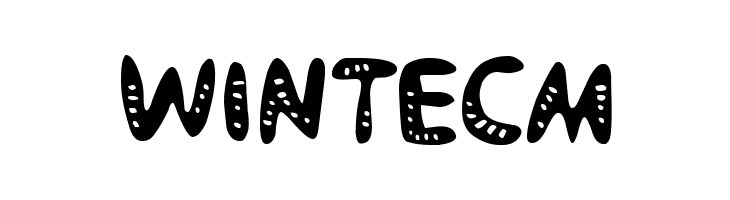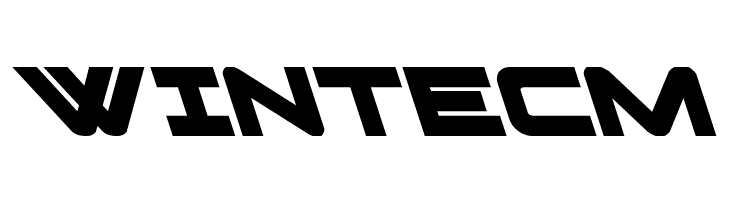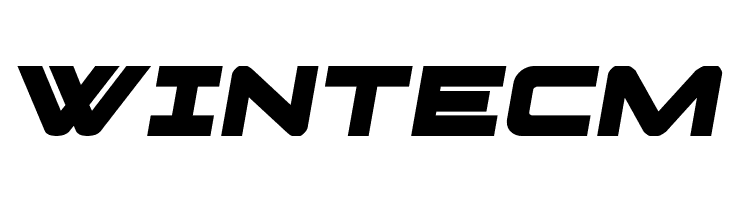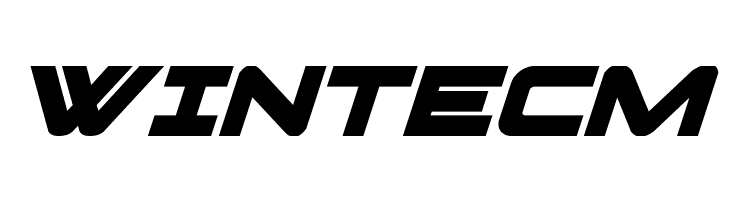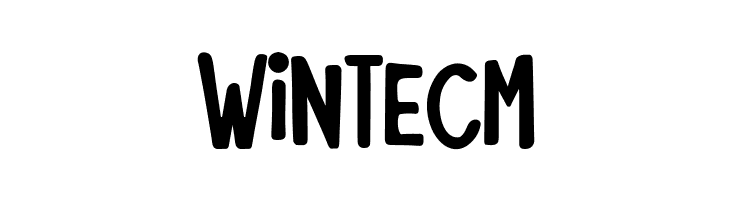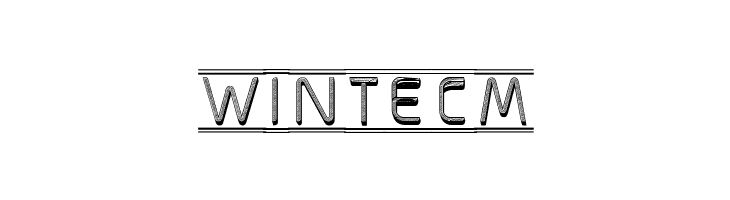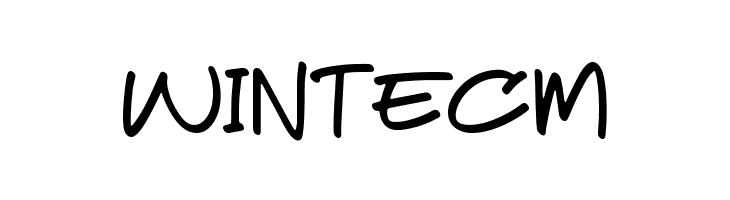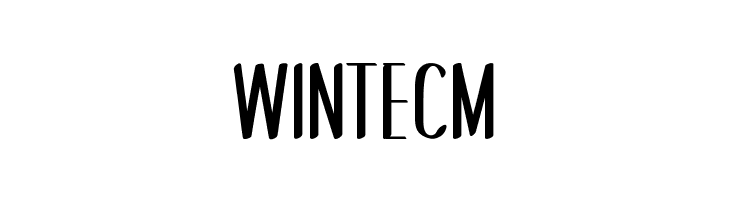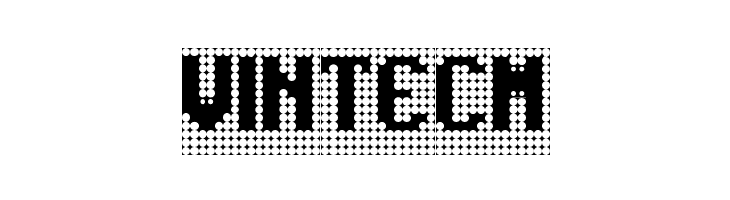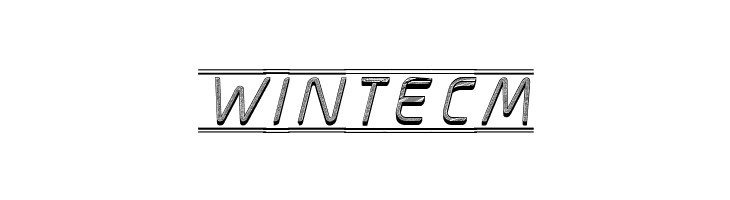
Pincers BRK Font
A thorn-like, edgy font with sharp, angular strokes resembling barbed wire.
Pinch Drunk Font
Font by Digital Graphics Labs - www.digitalgraphiclabs.com
A bold, angular font with a dynamic, distorted style.
Pinch My Ride Font
A bold, geometric font with a modern and assertive style.
Pinchik Font
Vladimir Fedotov
A modern, geometric sans-serif font with rounded edges and a minimalist design.
Pincllo Demo Font
A playful, bold font with rounded, bubbly characters and a whimsical style.
Pincoyablack Black Font
A bold, geometric display font with a strong, monospaced appearance.
Pinda Font
Font by David Kerkhoff - www.hanodedphotography.com
A bold, playful font with rounded, hand-drawn letterforms.
PINDOW Font
A bold, handwritten-style font with expressive, brush-like strokes.
Pindown BRK Font
Font by www.aenigmafonts.com
A playful, chain link-inspired decorative font with interconnected circular elements.
Pindown Plain BRK Font
Font by www.aenigmafonts.com
A dotted, grid-like font with characters formed by interconnected circles.
Pindown X BRK Font
Font by www.aenigmafonts.com
A playful, chain-like decorative font with bold outlines and circular patterns.
Pindown X Plain BRK Font
Font by www.aenigmafonts.com
A playful, dotted font with interconnected circular characters.
PindownA Font
A futuristic, angular font with sharp edges and geometric forms.
Pindunk Font
Font by Tamavocks
A bold, gothic-inspired blackletter font with sharp angles and dramatic style.
Pindunk Personal Use Regular Font
Tama Putra - be.net/tmptr